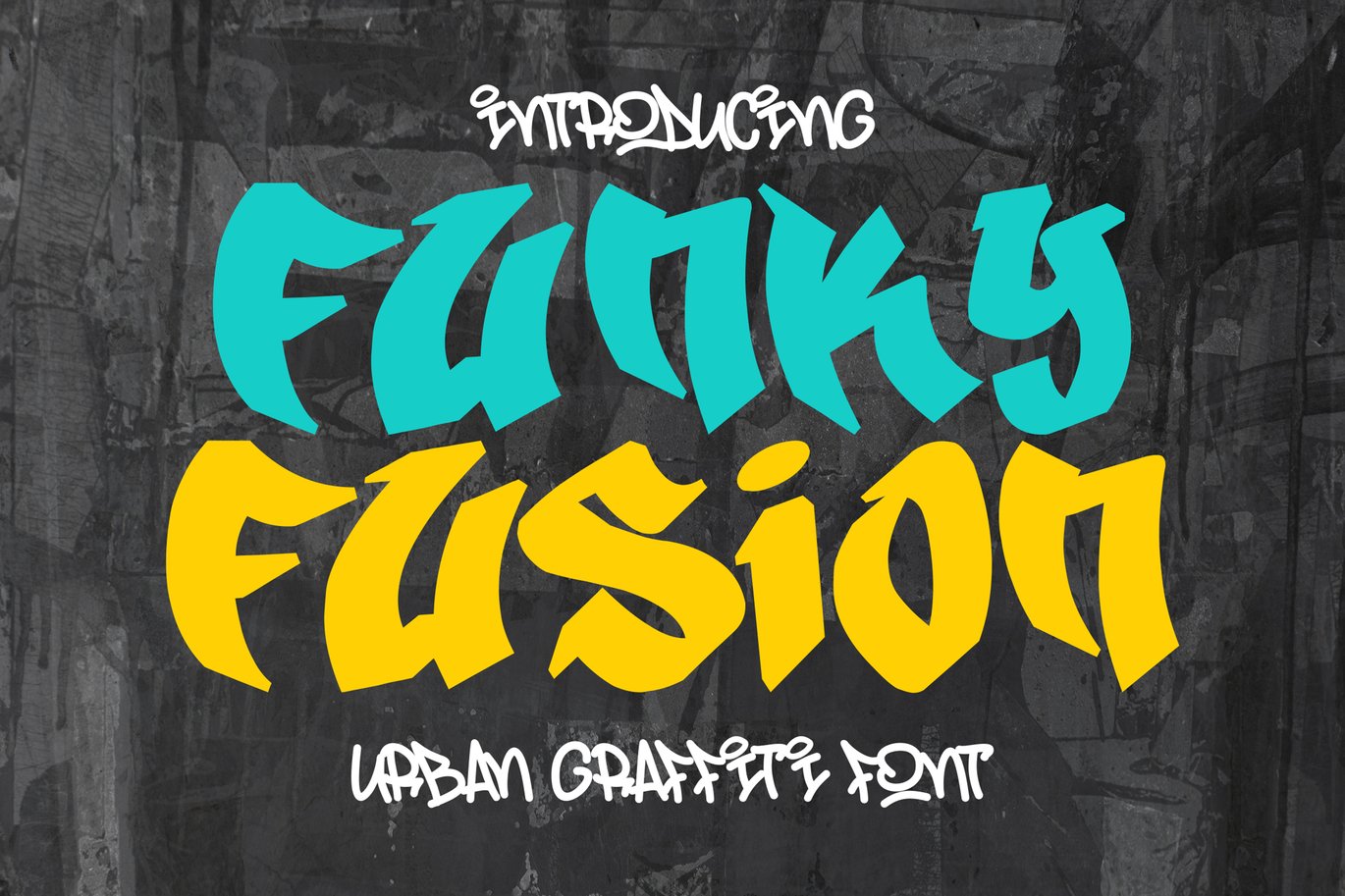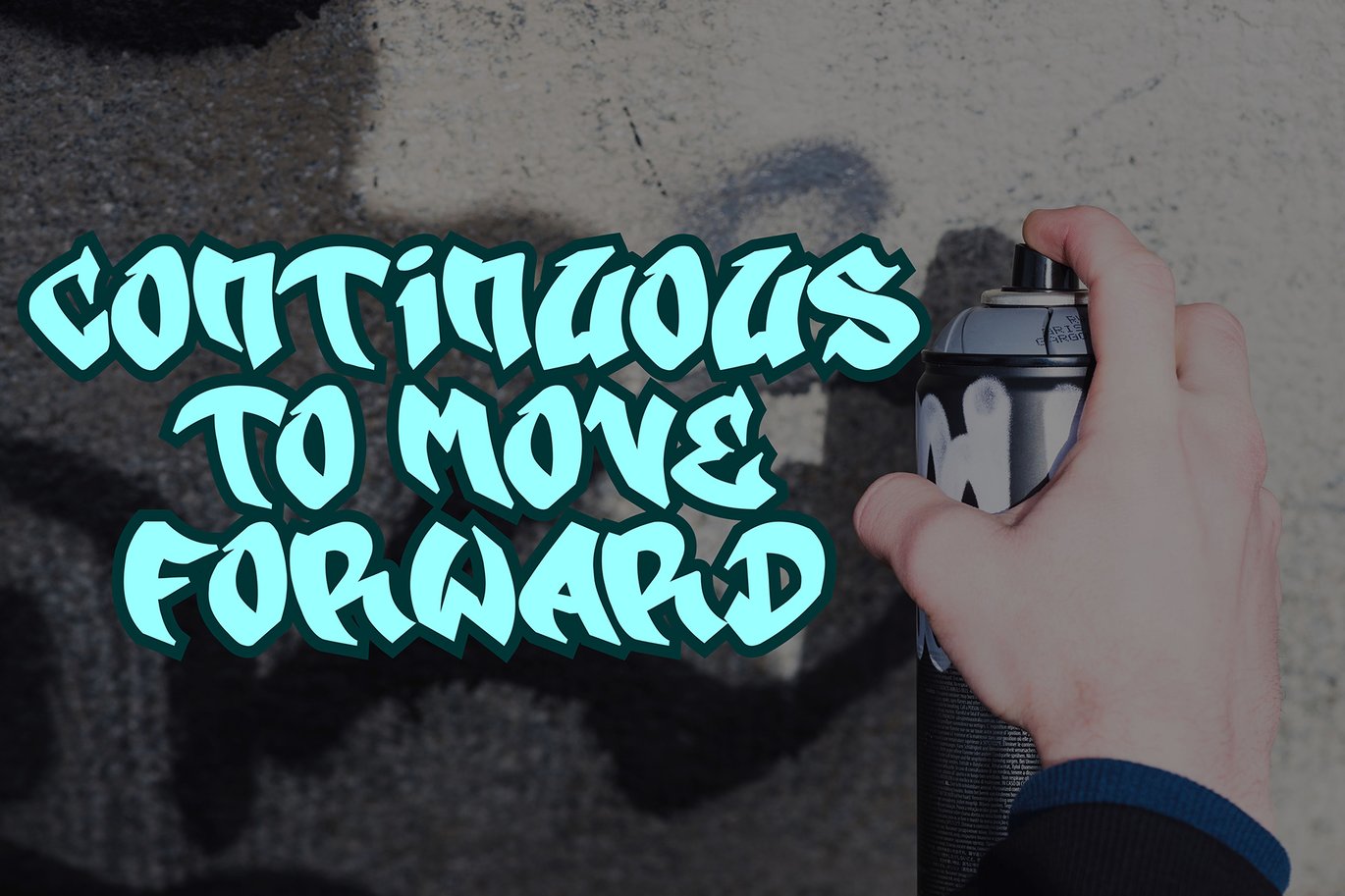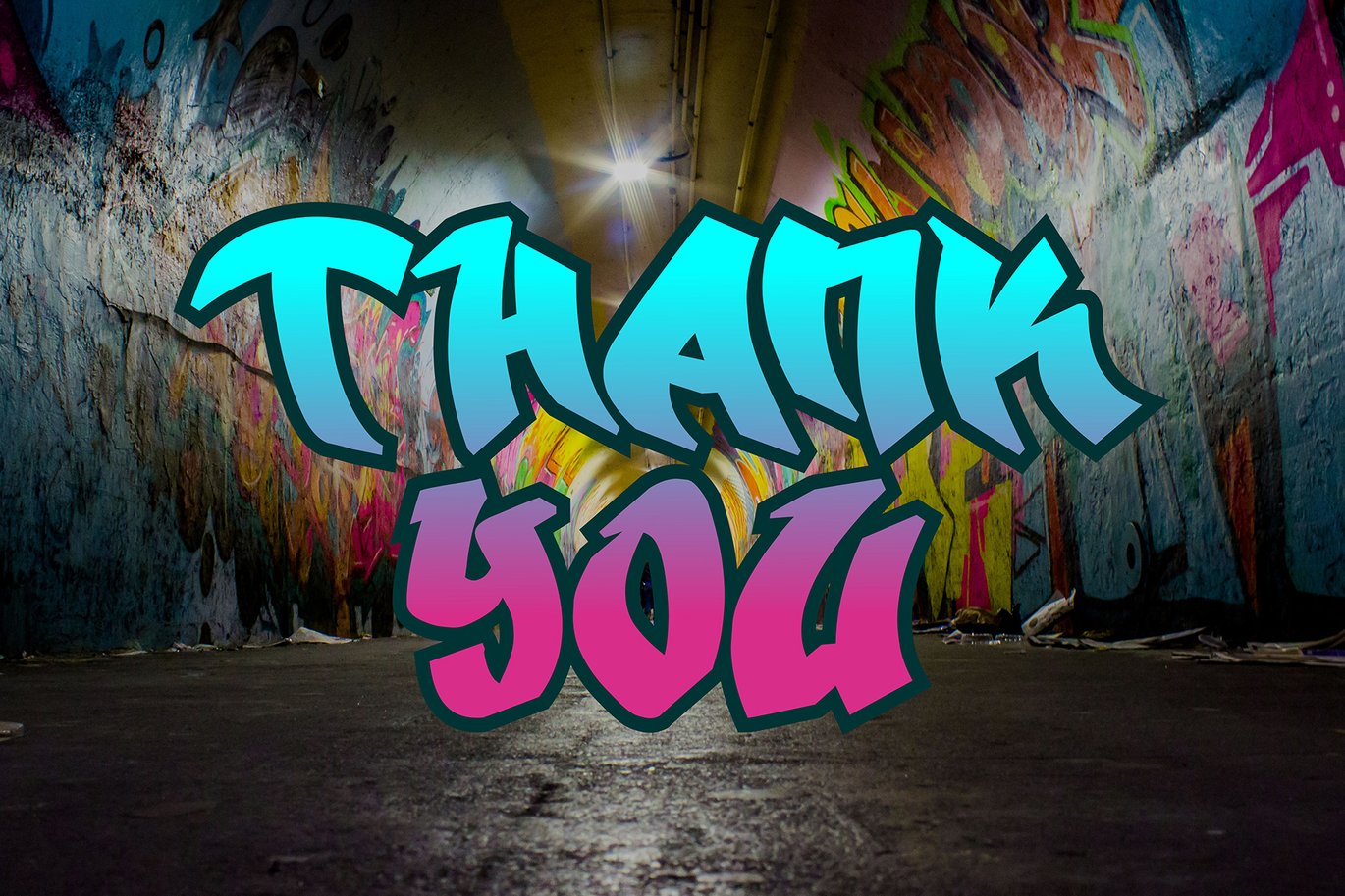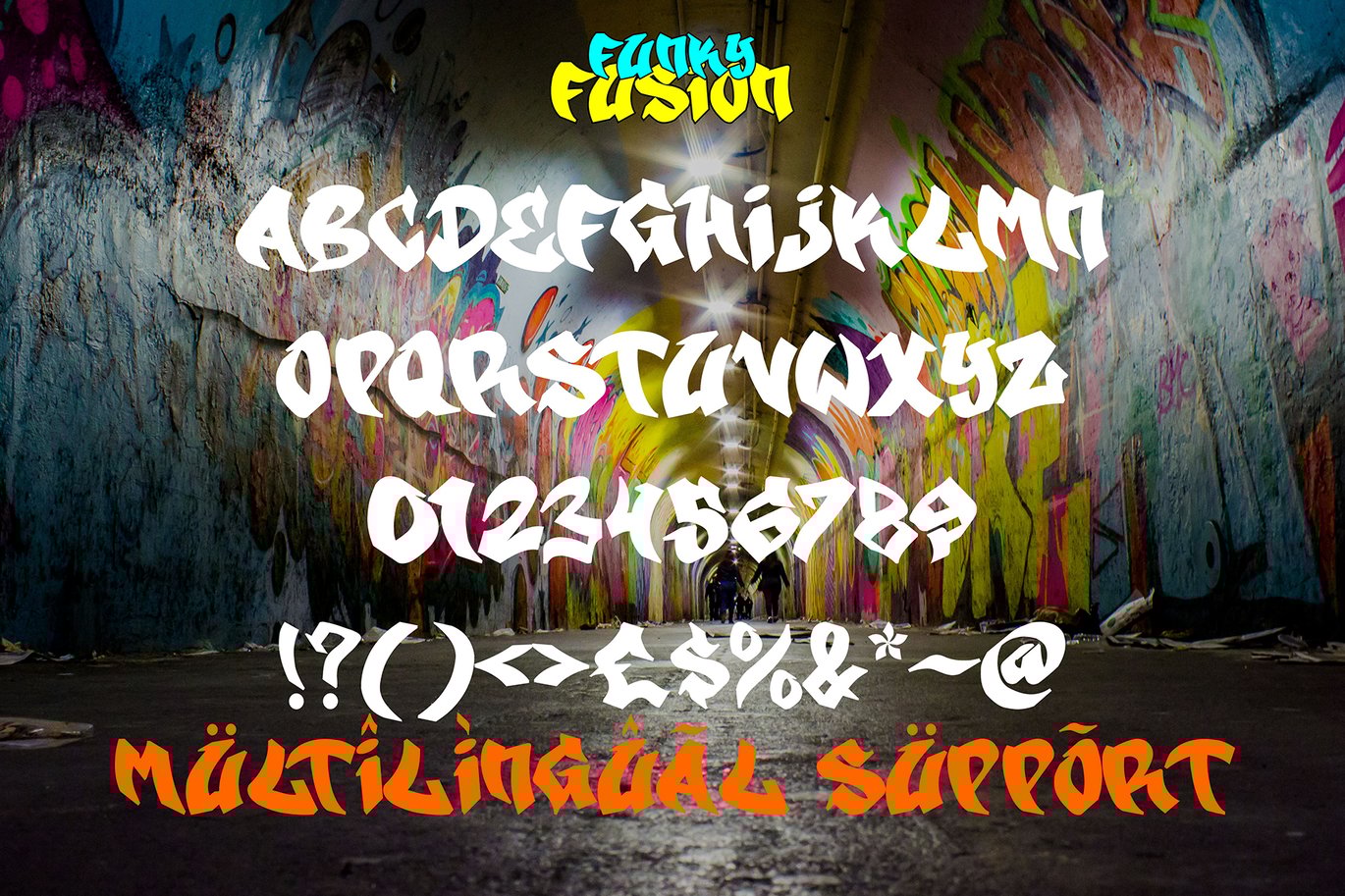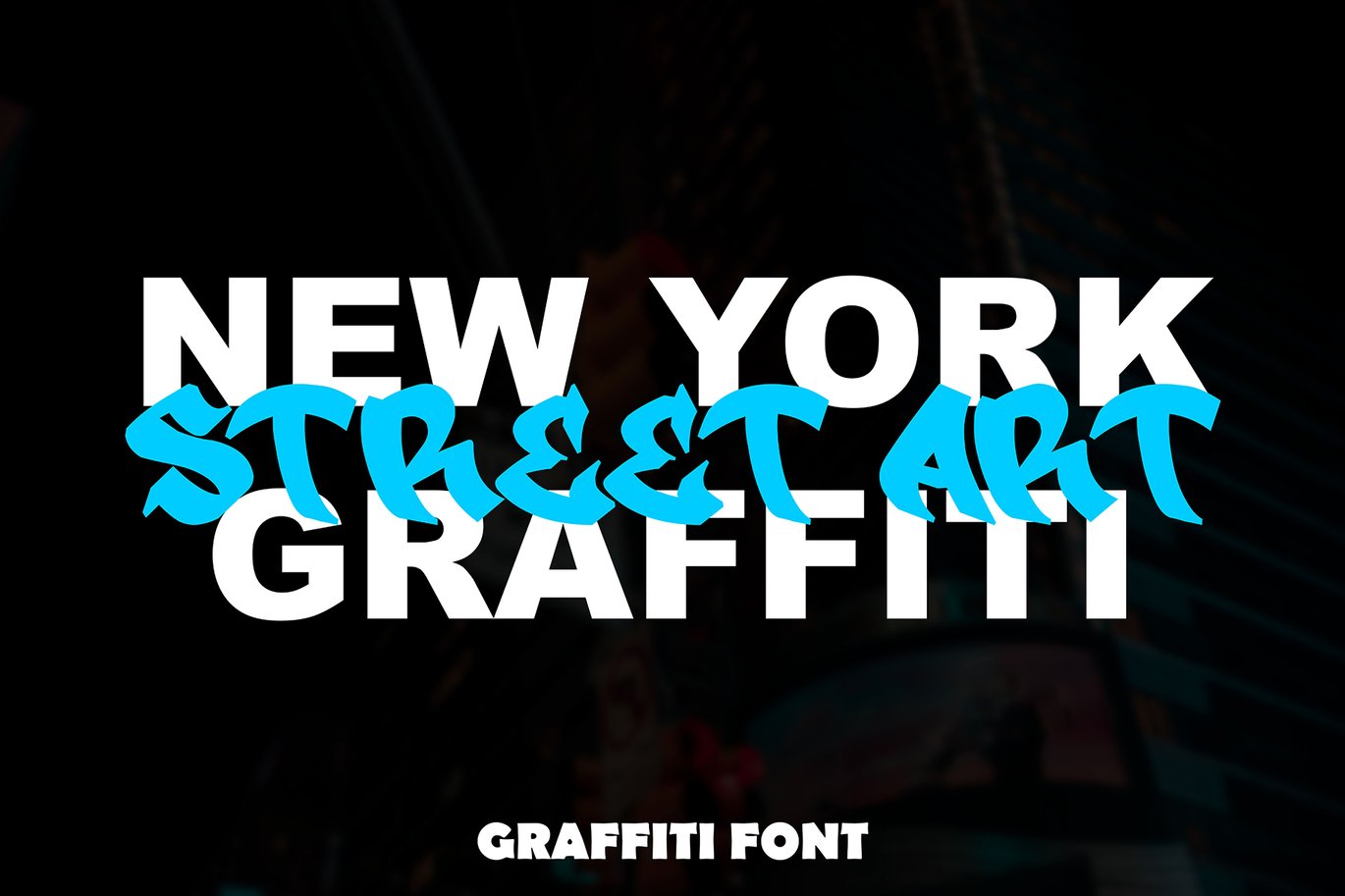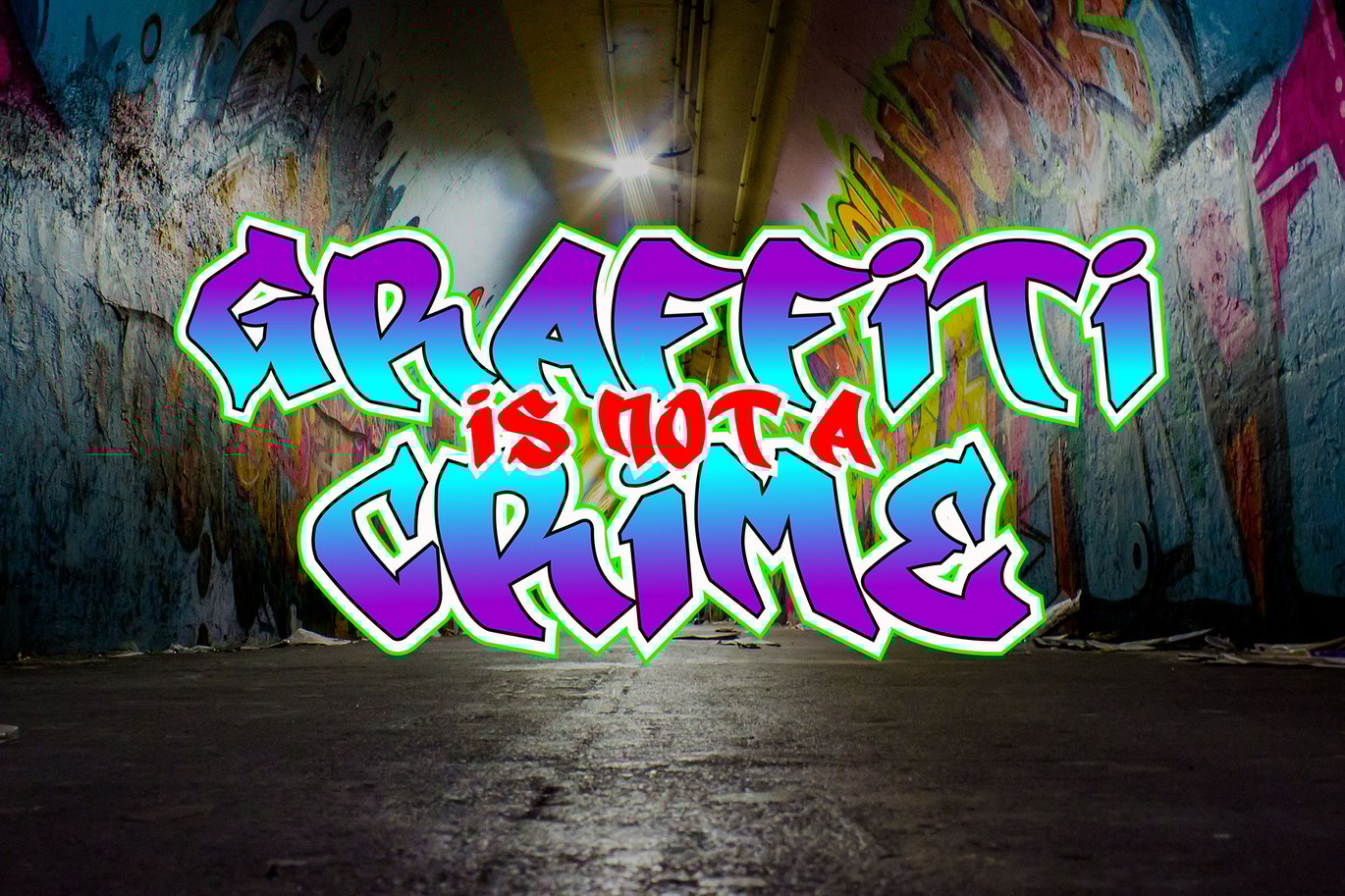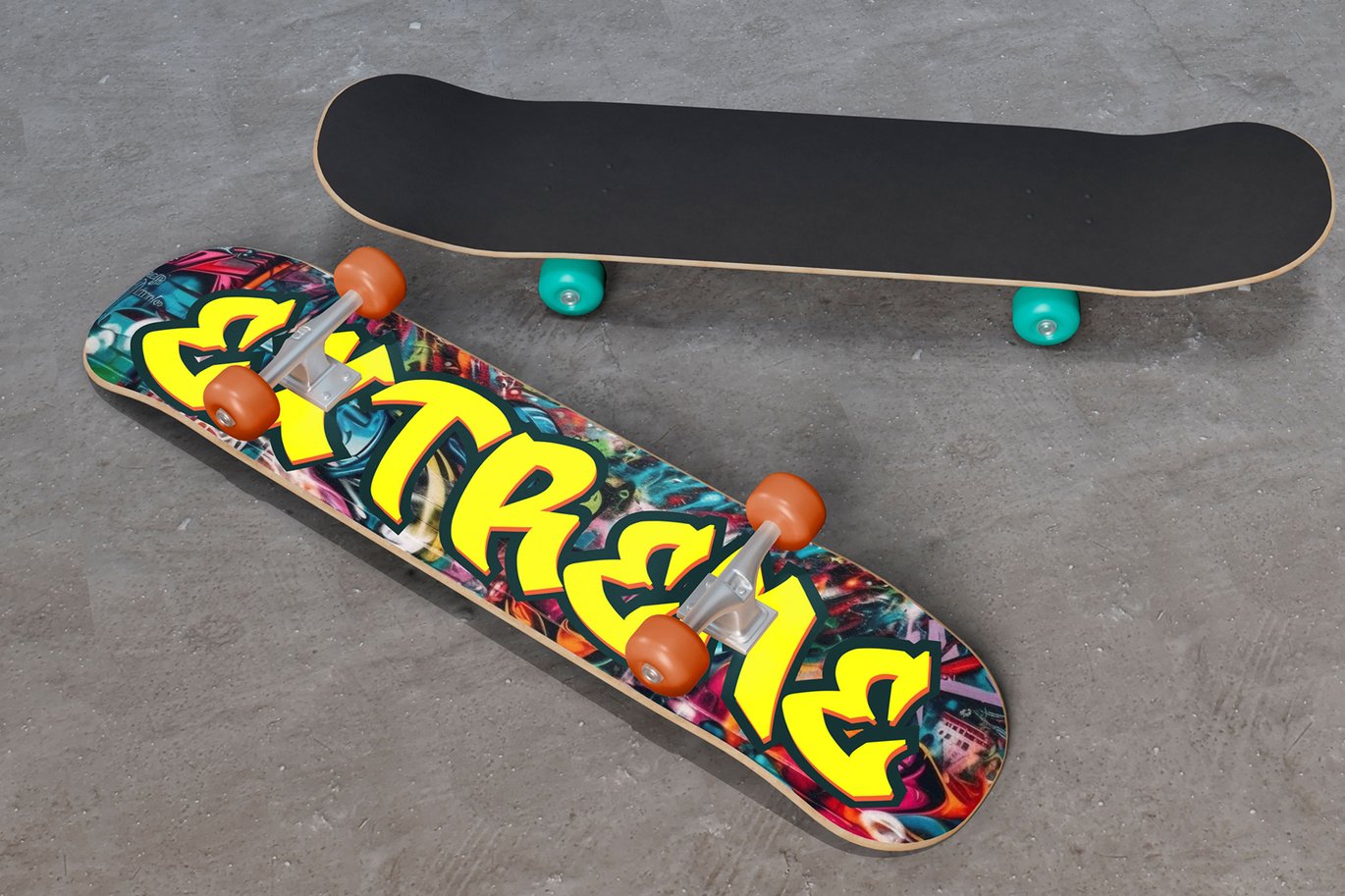
Funky Fusion – Urban Graffiti Font
Funky Fusion – Urban Graffiti Font is a dynamic and edgy typeface that draws inspiration from the vibrant street art culture. With bold and expressive letterforms, this font captures the raw energy and creativity of graffiti found in urban environments. Its playful yet rebellious style makes it perfect for eye-catching headlines, posters, and designs seeking an urban, contemporary flair. Whether used for artistic projects or to inject an urban vibe into various designs, Funky Fusion adds a unique and fresh twist to any typographic composition.